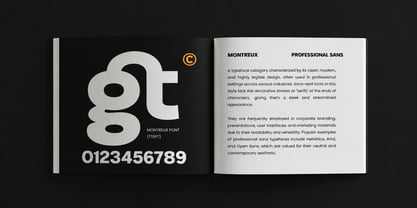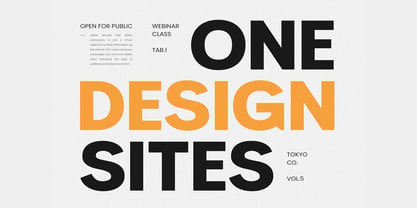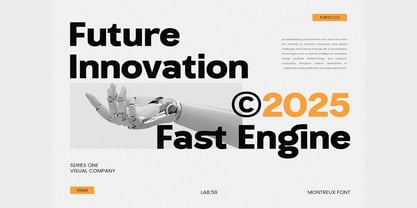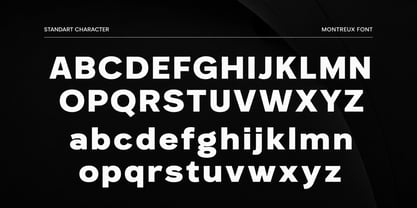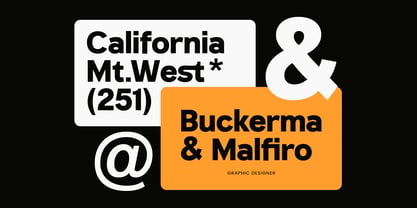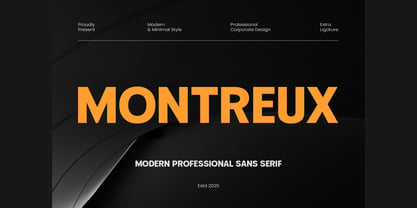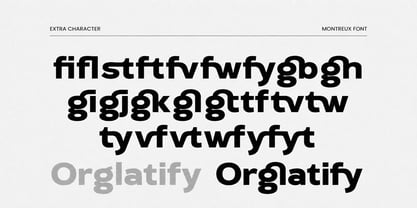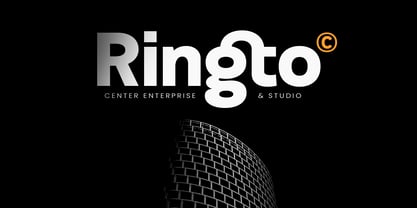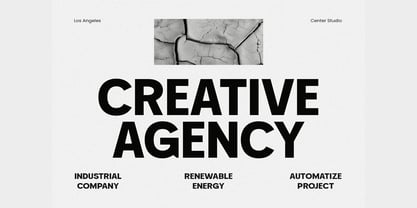
Montreux
Montreux – Modern Geometric Sans Serif Font for Branding & Editorial Design
Montreux is a bold modern geometric sans serif font designed to deliver clarity, precision, and contemporary style. Inspired by classic geometric typography, Montreux features clean lines, balanced proportions, and sharp letterforms that create a sleek and professional visual identity.
Built with strong geometric construction and minimal stroke contrast, Montreux reflects the timeless spirit of modernist typography while maintaining a fresh and contemporary feel. The font’s large x-height improves readability, ensuring excellent clarity even at smaller sizes, making it suitable for both display and text applications.
Montreux is highly versatile and adapts beautifully to a wide range of design needs. Whether you are working on branding, editorial layouts, website interfaces, or advertising campaigns, this geometric sans serif font brings structure and modern elegance to every project.
The carefully crafted letterforms create a strong visual rhythm that works perfectly for logos, posters, magazines, and signage. Its clean and minimalist style helps designs appear organized, stylish, and highly professional.
Montreux performs exceptionally well in both digital and print environments. From website typography and UI design to packaging, corporate materials, and marketing graphics, the font maintains consistency and clarity across different mediums.
Designers will also appreciate Montreux for business and corporate design projects, including stationery, flyers, presentations, and brand guidelines. At the same time, its modern aesthetic makes it ideal for creative industries such as fashion magazines, lookbooks, and agency portfolios.
With its balanced geometric structure and contemporary style, Montreux is a reliable font choice for designers who want typography that feels modern, elegant, and highly versatile.
Key Features
Modern Geometric Sans Serif
Clean geometric letterforms inspired by modernist typography.
High Readability
Large x-height and balanced spacing for excellent clarity.
Minimalist Professional Style
Perfect for contemporary branding and corporate design.
Versatile Typography
Suitable for both headlines and paragraph text.
Editorial & Display Ready
Works beautifully for magazines, posters, and advertising layouts.
Multilingual Support
Extended characters for international design projects.
Perfect For
• Branding & Corporate Identity
• Website & UI/UX Design
• Editorial Layouts & Magazines
• Posters & Advertising Campaigns
• Logos & Signage
• Packaging & Product Labels
• Agency Presentations & Lookbooks
• Corporate Stationery & Flyers
Additional Features
Why Choose Montreux?
Montreux is a refined modern geometric sans serif font that combines timeless typographic principles with contemporary design aesthetics. Its clean structure, high readability, and versatile style make it a perfect choice for designers seeking typography that is both professional and visually striking.